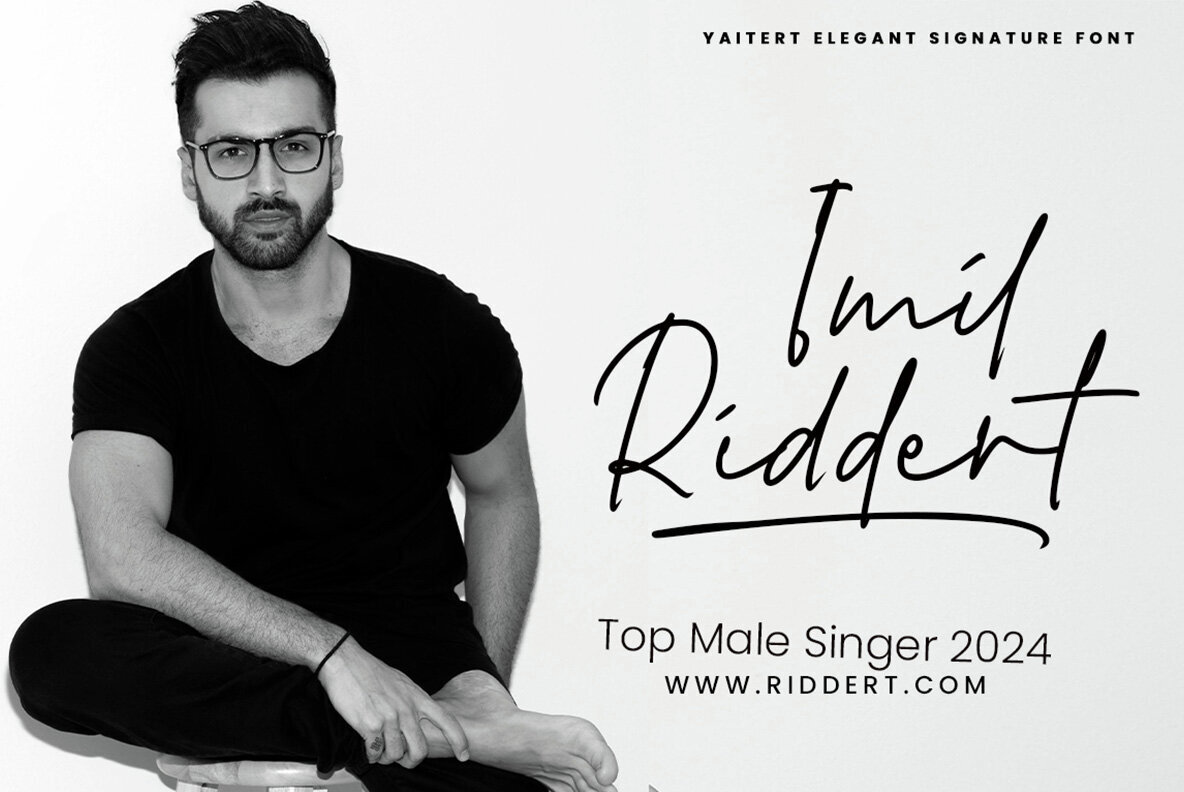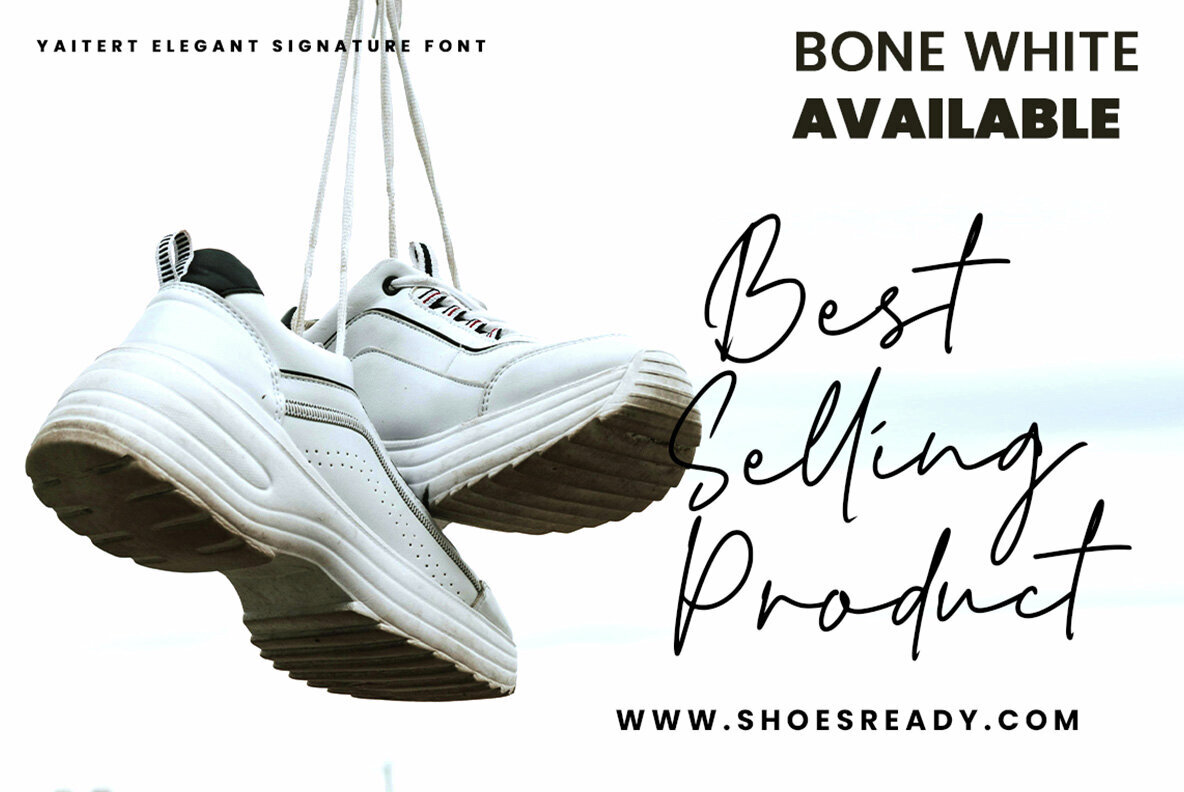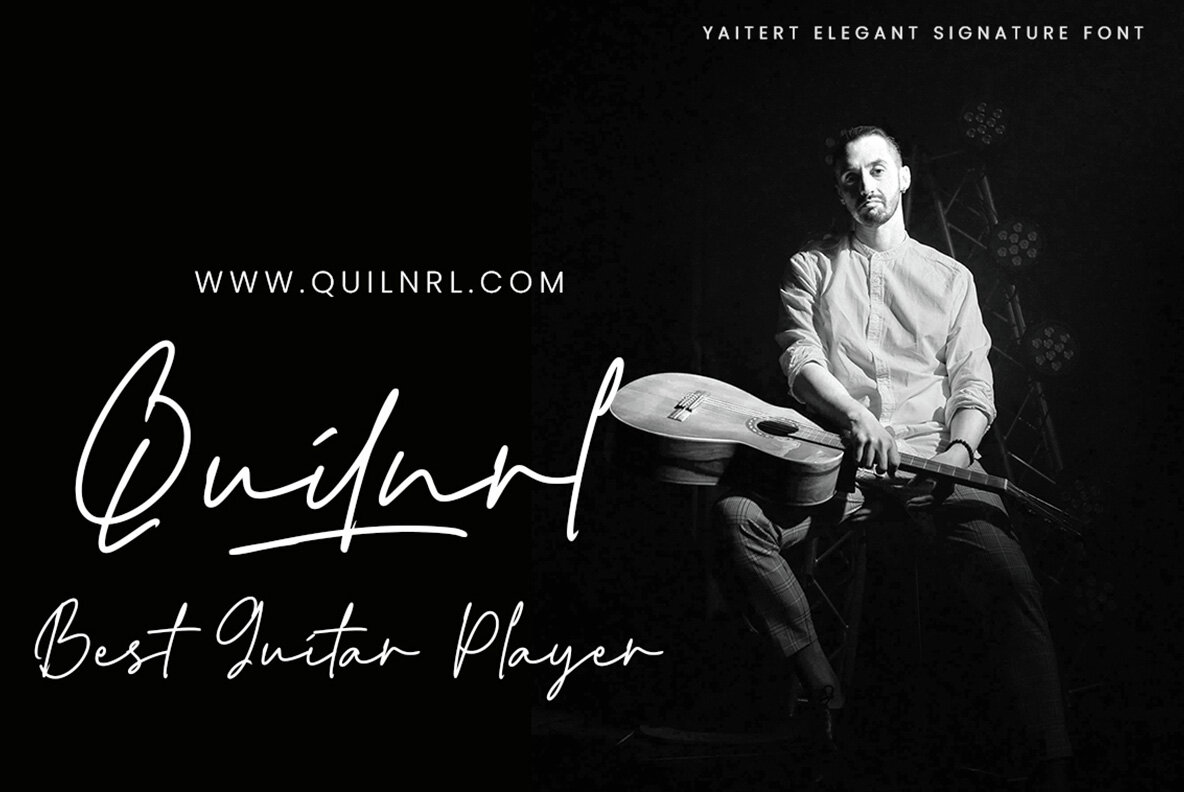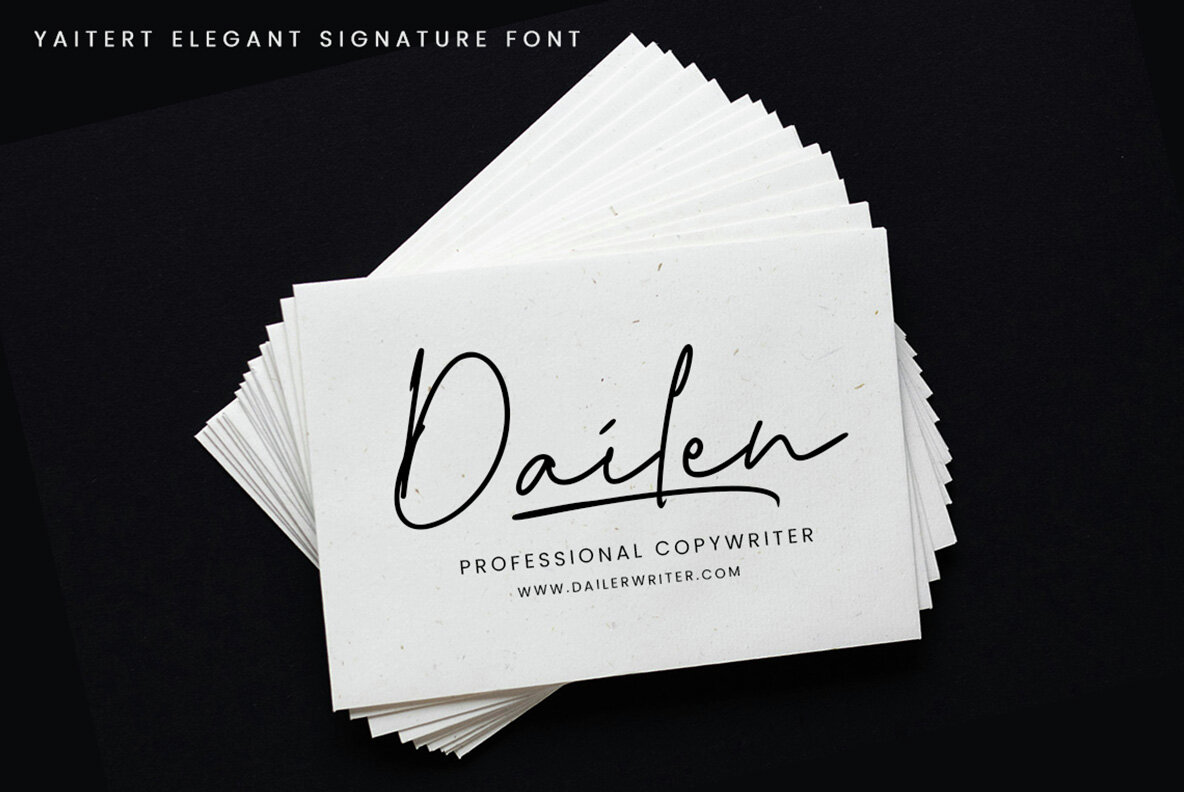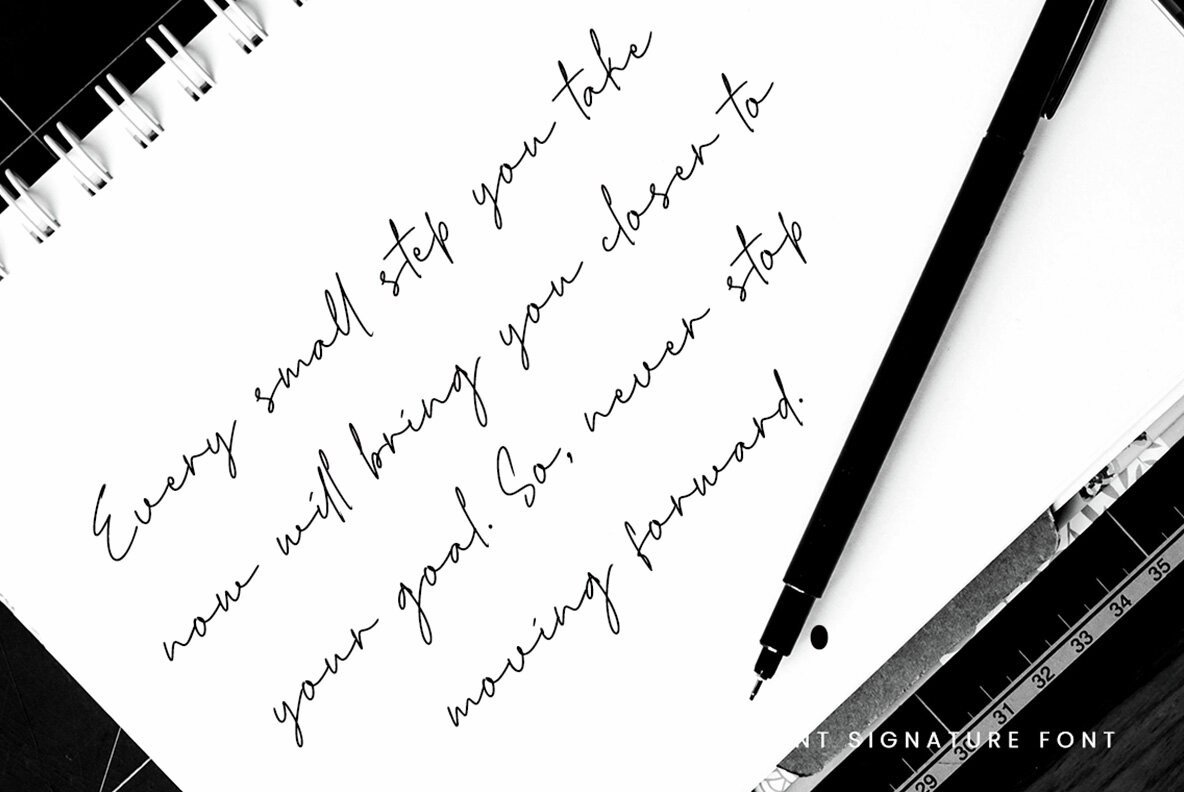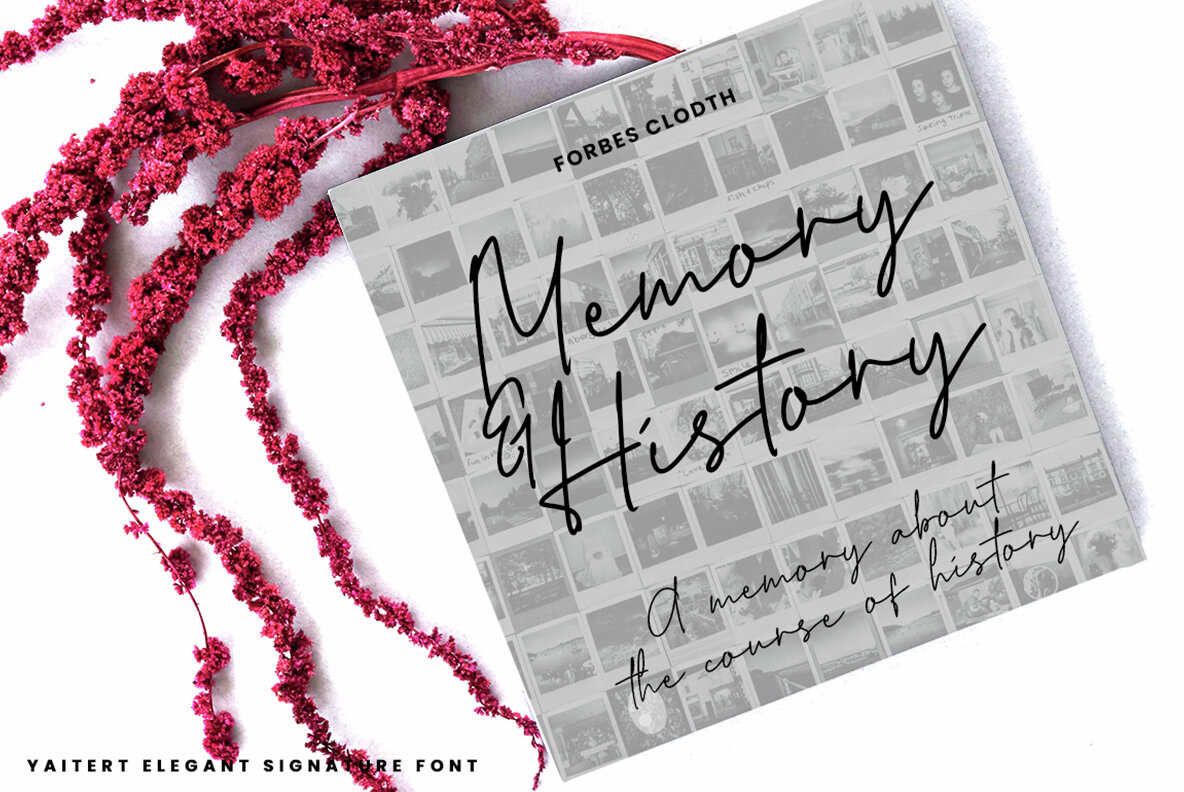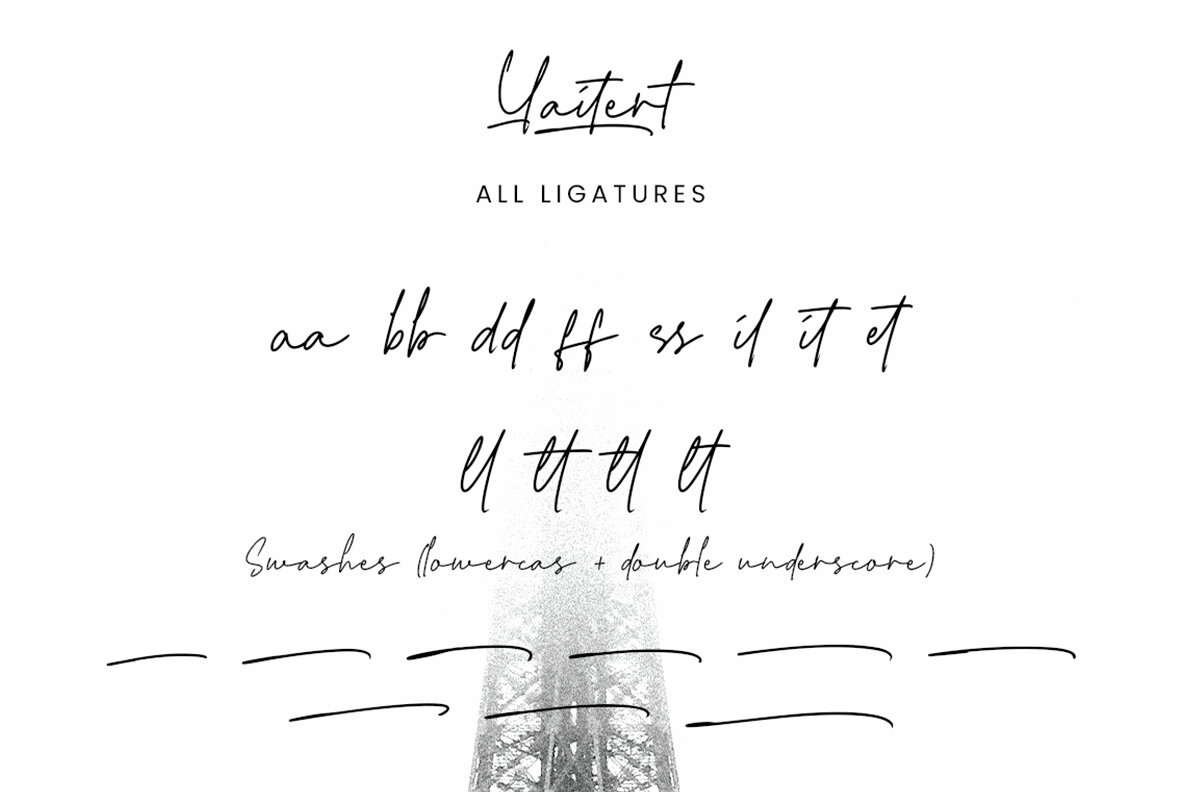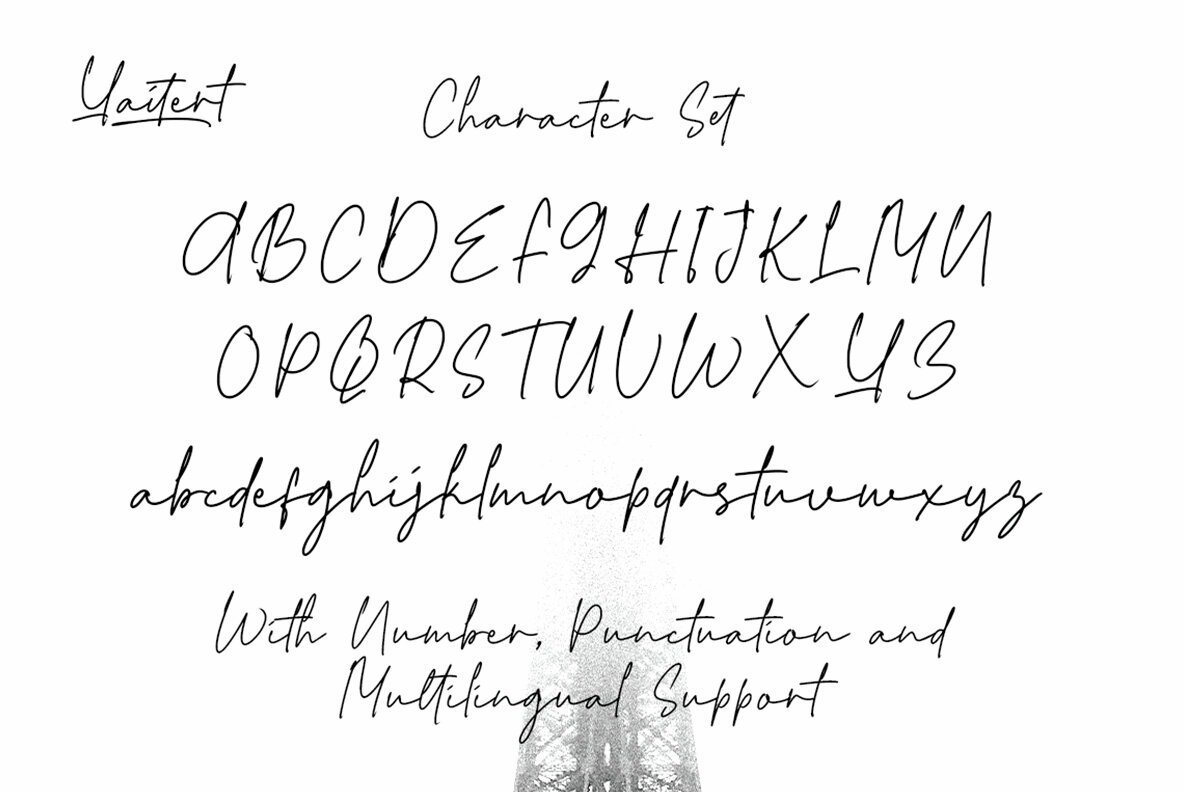
Yaitert Font
Yaitert
Yaitert is a dynamic brush-style typeface that captures an energetic and artistic handwritten essence. With fluid and dynamic strokes, this font delivers a casual yet creative aesthetic, perfect for projects that require a lively, personalized touch.
It includes a Style Alternative Ligature feature that enhances design possibilities. When combined with the Standard Binding option in the Opentype panel of software like Adobe Photoshop or Adobe Illustrator, it allows for simple yet effective letter combinations. This feature ensures that your design maintains a seamless and cohesive look.